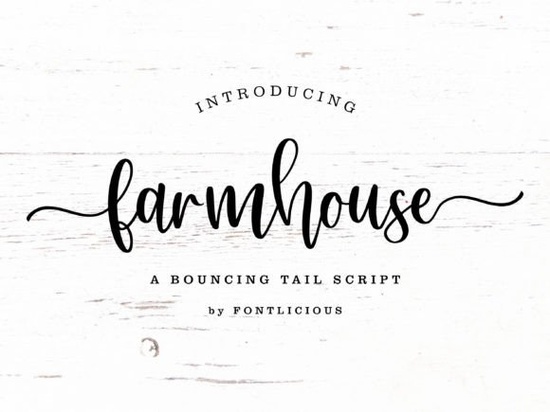
If you’ve been scrolling through script fonts looking for something with charm and personality, Farmhouse Font might be exactly what your next craft or design project needs. It’s a bouncy, flowing typeface with built-in swashes that give it a handmade, cozy feel the kind that looks great on wood signs, wedding invites, tote bags, or even digital stickers. Whether you’re running a small print-on-demand shop or just making birthday cards for friends, this font adds warmth without being fussy.
What makes Farmhouse Font stand out from other script fonts?
Not all script fonts are created equal. Some feel stiff. Others are too wild to read. Farmhouse strikes a nice balance it’s playful but legible, fancy but not overwhelming. The swashes aren’t tacked on as extras; they’re part of the letterforms, which means you don’t need to toggle OpenType features or layer glyphs manually. That’s a huge time-saver if you’re batch-producing designs or working under tight deadlines.
You’ll notice how letters like “y,” “g,” and “f” dip and curl naturally, giving each word a rhythm. It pairs well with simple sans-serifs or rustic serif fonts if you’re building layered layouts. And because it’s designed with crafters in mind, it scales beautifully whether you’re printing at 1 inch tall or 12 inches wide, the details hold up.
Who should use Farmhouse Font?
- Print-on-demand sellers Use it for mugs, shirts, or wall art with quotes like “Home Sweet Home” or “Farmhouse Kitchen Rules.”
- Wedding designers Try it for place cards, menus, or signage. Pair it with something like Wedding Dream for contrast.
- Small business owners Perfect for boutique packaging, labels, or social media graphics that need a personal touch.
- Hobbyists If you love making vinyl decals, scrapbooks, or hand-lettered journals, this font feels like your own handwriting but better.
How does it compare to similar styles?
If you’ve used Sunshine Olivia, you know that font has more of a modern calligraphy vibe sleek and smooth. Farmhouse is more relaxed, almost like chalkboard lettering after a few cups of coffee. For sci-fi lovers who usually reach for Star Wars-inspired fonts, this is the opposite end of the spectrum: soft, earthy, and nostalgic.
It also plays nicely alongside Love Twist Duo if you’re designing romantic or seasonal pieces. Where Love Twist leans into delicate swirls, Farmhouse keeps things grounded with its organic bounce. You can mix them for headers and subheaders to add depth without clashing.
What kinds of projects work best with this font?
Here’s where Farmhouse really shines:
- Wood signs and farmhouse decor Naturally. Think quotes like “Gather” or “But First, Coffee.”
- Custom gift tags and packaging Especially for homemade jams, candles, or baked goods.
- Instagram quote posts The bounce reads well on mobile and doesn’t get lost in small sizes.
- SVG files for cutting machines Clean paths mean less cleanup in Cricut Design Space or Silhouette Studio.
One tip: avoid using it for long paragraphs. Like most display scripts, it’s meant to be savored in short bursts names, headlines, phrases. For body text, pair it with a clean sans-serif like Montserrat or Lato.
Quick checklist before you start designing:
- ✅ Install both regular and alternate versions (if included) to access swash variations.
- ✅ Test readability at your intended size especially if printing small.
- ✅ Pair with a neutral font for balance avoid stacking two bouncy scripts together.
- ✅ Save your favorite glyph combinations as presets if your software allows it.
Fonts like this one remind us that good design doesn’t have to be complicated. Sometimes, it’s just about choosing a typeface that feels human one that breathes, bends, and brings a little joy to whatever you’re making. Give Farmhouse a spin next time you want your project to feel like it was made with care.